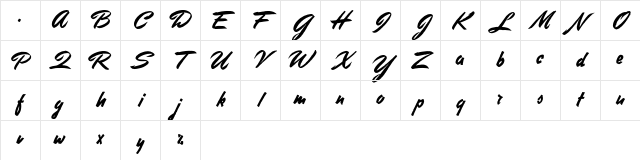
Stephens Heavy Writing Regular Free Font
Stephens Heavy Writing Regular
Foundry: Paulo W
Design Context for Stephens Heavy Writing
Stephens Heavy Writing is a composed and adaptable typeface that performs quietly and consistently across a wide range of design contexts.